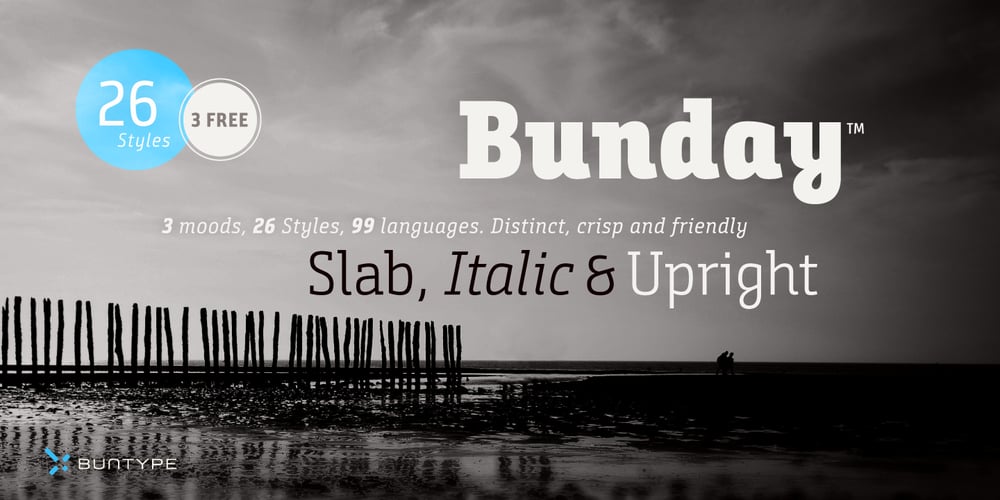
Bunday Slab Font Family was designed by Petra Niedernolte, Ralf Sander and published by Buntype. Bunday Slab contains 26 styles and family package options. The new Bunday™ Slab Font Family consist of three main states with different moods: the crisp and distinctive slab serif, the cute script styled italic and the matching upright italic. All states of Bunday™ Slab share the same contemporary, clear and open base forms and create a space-saving and pretty homogeneous text colour with good legibility. The font was manually hinted and contains extensive handcrafted kerning tables to ensure perfect appearance in all media. Bunday™ Slab ships with 9 standard, 9 upright italic and 8 italic styles from a considerable thin “Hair” to a pretty fat “Heavy” weight. It supports at least 99 languages and provides OpenType® features for ligatures, alternative glyphs, localised forms and more. Please take a look at the other members of the Bunday superfamily: Bunday™ Clean Bunday™ Slab Further information: Bunday Slab Specimen PDF Feature Summary: 9 weights: Hair, Light, Thin, SemiLight, Regular, SemiBold, Bold, ExtraBold and Heavy 3 Moods: Sans, Upright and Upright Italic Overall width: Narrow or Space-Saving Advanced “f” ligature set* “s” and “c” ligatures* Alternates Characters: a, ç, e, f, g, l, t, y and more* Capital German Esszett* Supports at least 99 Languages * Only available applications with advanced OpenType® support